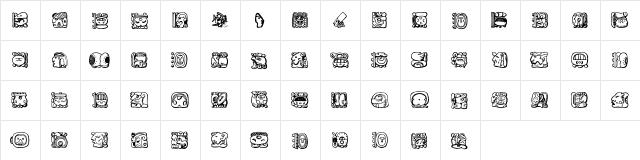
MayanDingbats Regular
Design Context for MayanDingbats Typeface
MayanDingbats is a composed and adaptable typeface that performs quietly and consistently across a wide range of design contexts.